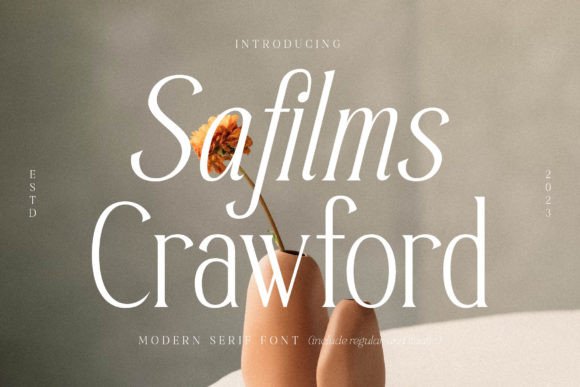
Introducing Safilms Crawford, the serif typeface that exudes elegance and luxury, crafted by the talented hands at Storytype Studio.
Step into a world of timeless beauty, where classic design meets modern aesthetics. Safilms Crawford is not just a font; it's an experience that elevates your designs to new heights of sophistication.
With its meticulously crafted curves and delicate serifs, Safilms Crawford brings a touch of refinement to your projects. It's the perfect choice for creating logos that command attention, book or movie titles that inspire, and fashion brands that exude elegance.
Imagine your designs adorned with Safilms Crawford, capturing the essence of luxury and sophistication. Your logos will radiate authority, your titles will ignite curiosity, and your fashion designs will radiate a timeless allure.
Safilms Crawford is not just a font; it's an investment in your creative endeavors. Its versatility knows no bounds, easily adapting to a myriad of design projects.
Craft breathtaking magazine layouts that captivate readers, design clothes that speak volumes about your brand's identity, and create lettering and quotes that resonate with your audience.
With Safilms Crawford, your designs will transcend the ordinary and embrace the extraordinary. Its modern and classic style ensures that your creations remain relevant and timeless, leaving a lasting impression on all who encounter them.
Don't settle for ordinary fonts. Embrace the allure of Safilms Crawford and unlock a world of creative possibilities.